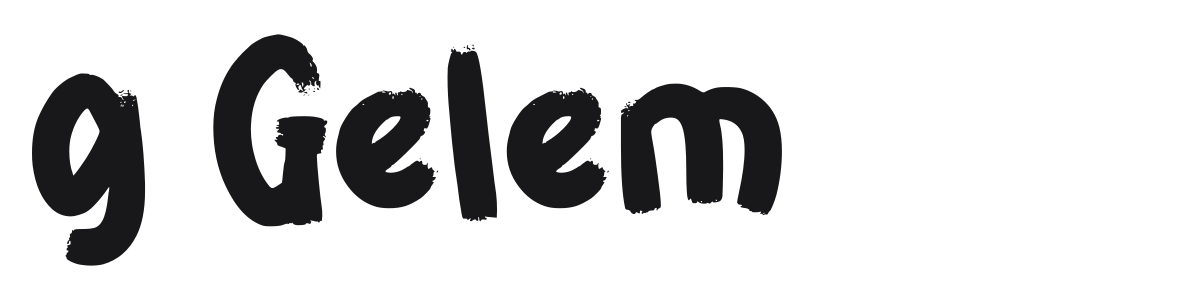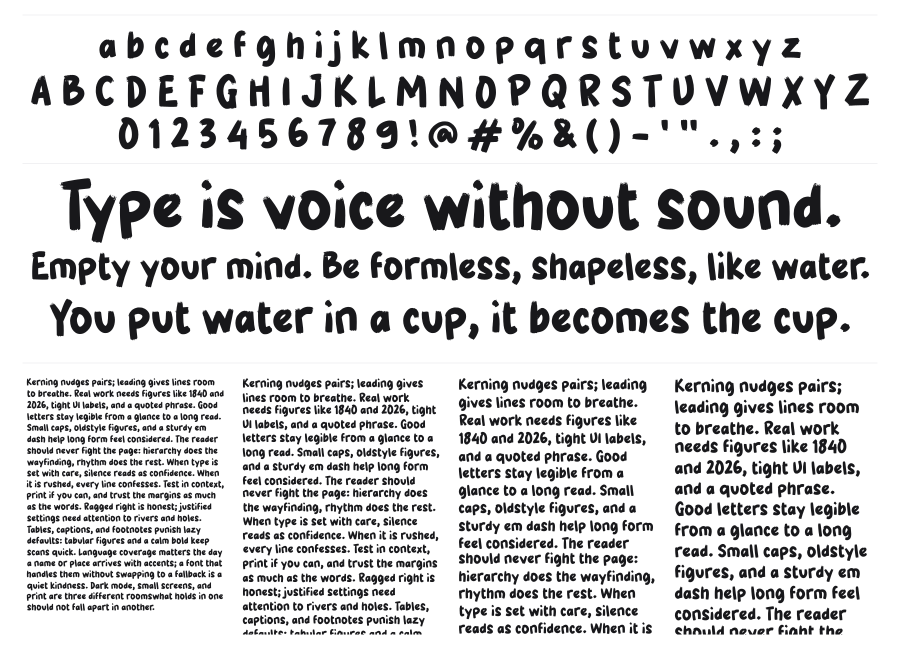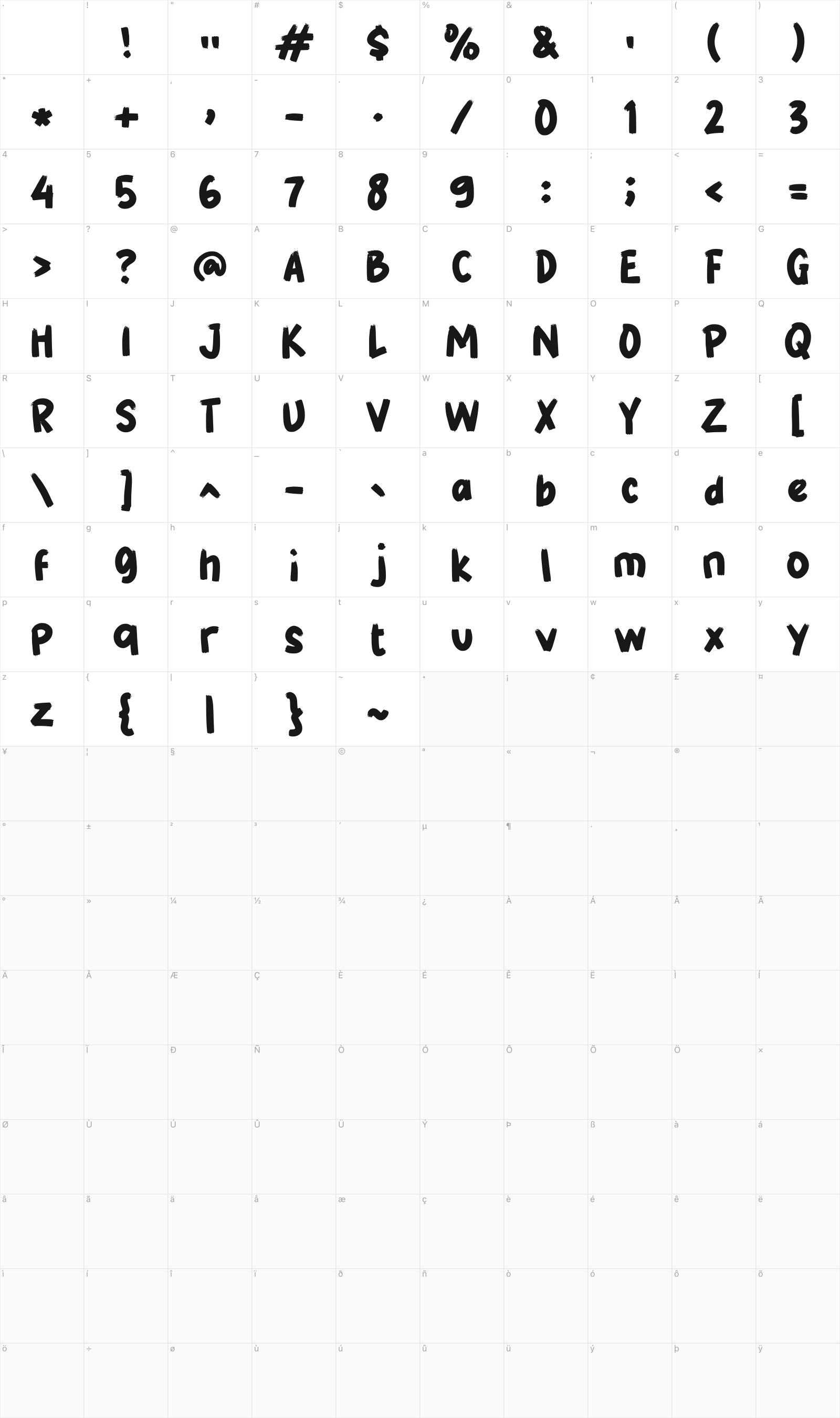
g Gelem
Gelem is a bold brush font with chunky, paint-textured strokes and rounded terminals that give it a lively, hand-painted character. The heavy weight and irregular edges create energy without tipping into grunge territory. Great for headlines, posters, and brand work that needs a casual, expressive voice.